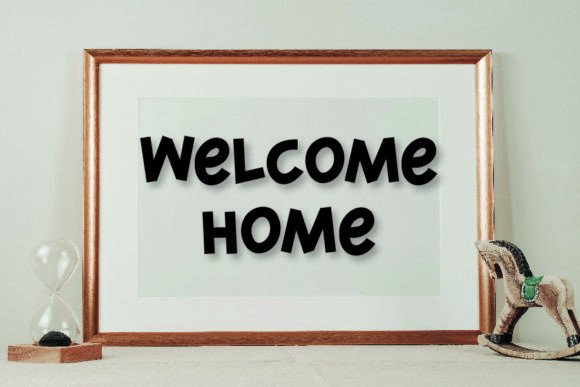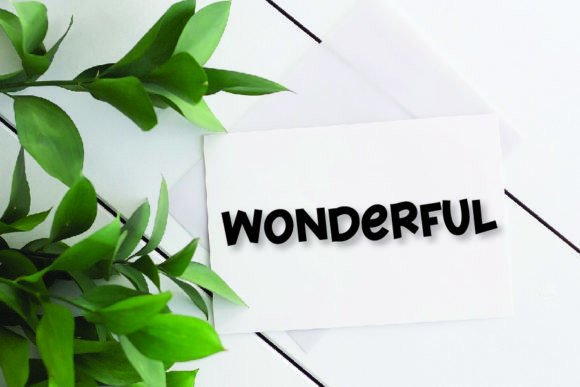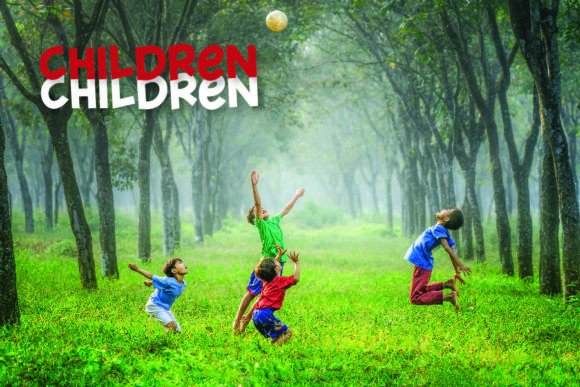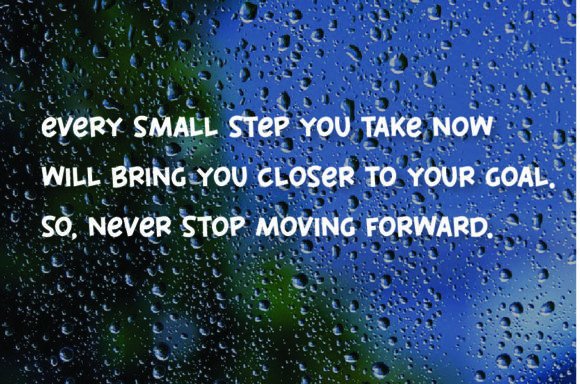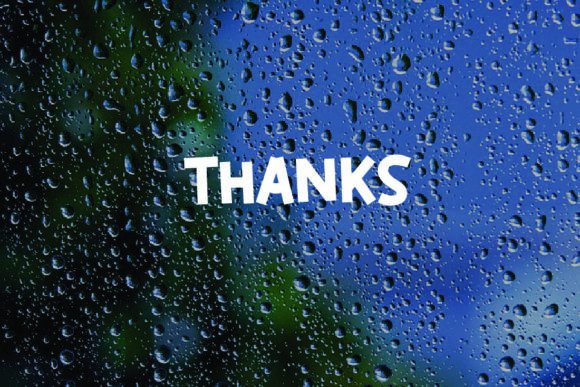
Deck the Halls with Creative Typography
As you sit down to design your holiday cards or gift labels, a spark of creativity strikes – you want to add a touch of magic to your words. The twinkling lights, the festive decorations, and the joyous atmosphere all blend together to create the perfect backdrop for your design. But, what if you could bottle up that holiday cheer and put it into your typography?
That’s where Creative Font comes in – a festive and happy typeface that captures the essence of the holiday season. With its decorative elements and unique flair, this font adds a touch of charm to your designs, transporting your audience to a place of nostalgia and wonder. Whether you’re a seasoned designer or just starting out, Creative Font is a valuable asset to have in your toolkit, helping you create designs that truly shine.
Creative Font Key Features
- Font Family: Available in 3 unique styles (Serif, Sans-Serif, Script)
- Character Set: Supports over 1000 glyphs, including international characters and symbols
- Unique Characteristics: Features a dynamic ligature system, contextual alternates, and a wide range of language support
Designer Review: Creative Font
Overall, I’d say “Creative Font” is a decent addition to any designer’s toolkit, but it has its strengths and weaknesses.
- Unique style: The font’s quirky, playful design is sure to stand out in a crowded market.
- High-quality glyphs: The font includes a wide range of glyphs, including ligatures and ornaments.
- Customization options: Users can adjust the font’s weight, slant, and spacing to suit their needs.
- Legibility issues: At smaller font sizes, the font can become difficult to read, especially for users with vision impairments.
- Limited language support: While the font includes a range of languages, it may not be suitable for complex scripts or languages with nuanced typography.
While “Creative Font” has some great features, its limitations may make it less suitable for certain projects or users. As a designer, I’d recommend it for personal projects or small-scale commercial work, but it may not be the best choice for large-scale or complex typography projects.
For the most creative results, use Creative Font in combination with bold or italic styles.
– Creating eye-catching headings and titles
– Adding a personal touch to social media graphics
– Designing memorable business cards and brochures
Alternatives to “Creative Font” for Designers
Great Vibes Font is a modern, elegant script font that’s perfect for creating a sophisticated and artistic look. It’s ideal for use in titles, headings, and other areas where you want to add a touch of creativity and flair. Unlike Creative Font, Great Vibes Font has a more refined and polished feel, making it suitable for high-end designs and projects.
Alex Brush Font is a beautiful, handwritten font that’s great for adding a personal and emotional touch to your designs. It’s perfect for use in titles, quotes, and other areas where you want to convey a sense of warmth and personality. Compared to Creative Font, Alex Brush Font has a more organic and imperfect feel, making it ideal for designs that want to appear more handmade and unique.
Carolyna Pro Font is a luxurious, high-end font that’s perfect for creating a sense of opulence and sophistication. It’s ideal for use in titles, headings, and other areas where you want to add a touch of glamour and elegance. Unlike Creative Font, Carolyna Pro Font has a more refined and sophisticated feel, making it suitable for high-end designs and projects.